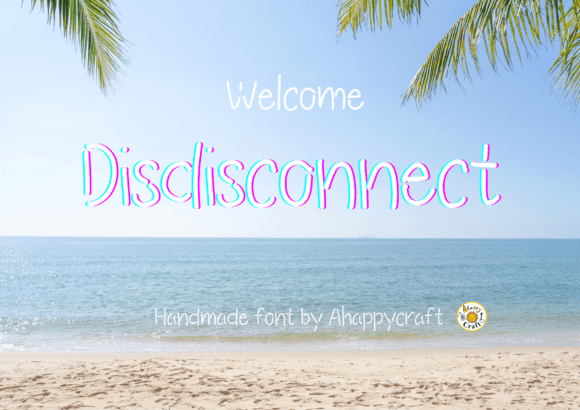
Introduction to Disdisconnect Font
Disdisconnect is a handmade font with lines that are disconnected.
It’s perfect to design templates, brochures, videos, advertising branding, logos, invitation, layout design, elegant crafting, beauty design, and more .